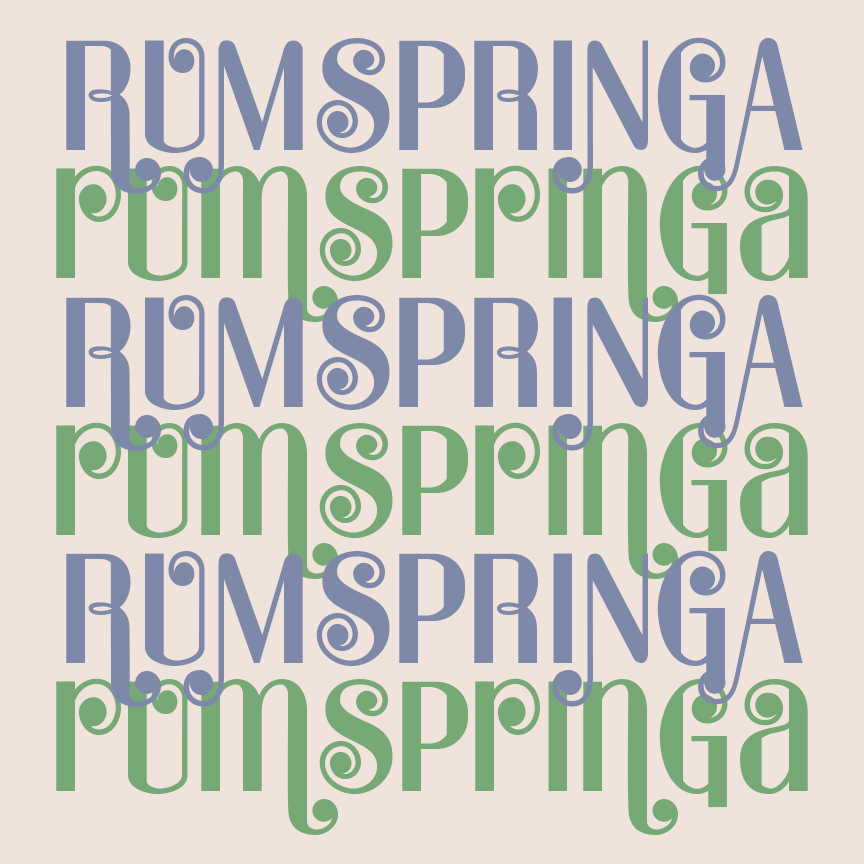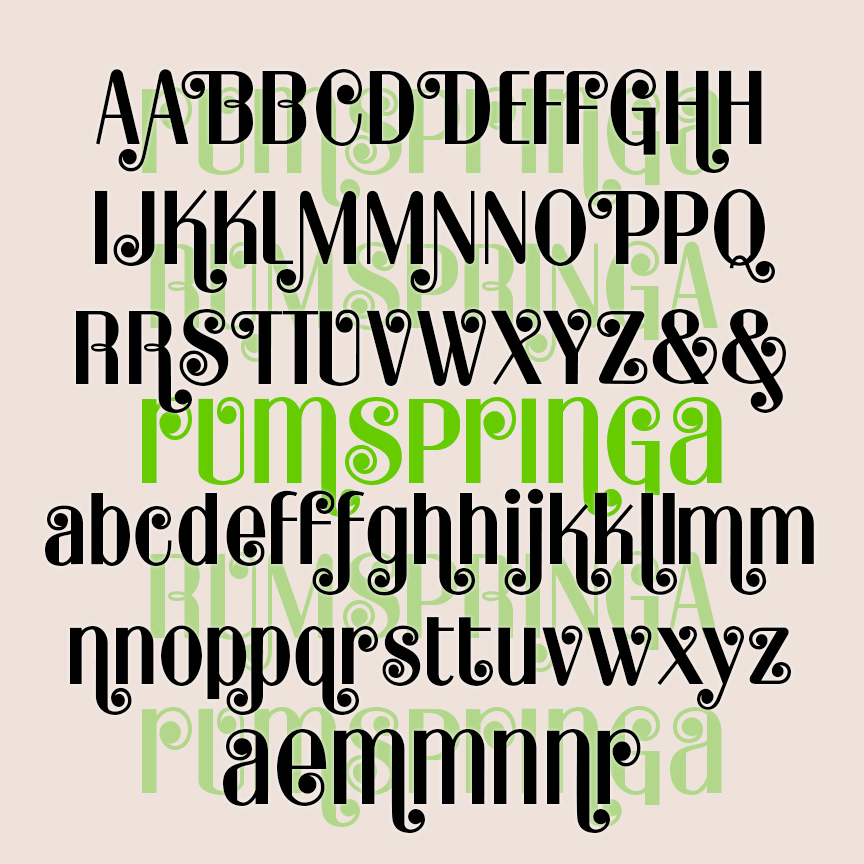
Rumspringa
RUMSPRINGA is a bright and cheerful Modern font with energy and versatility. Contrasting thin and thick strokes are combined with bouncy ball terminals for a musical feel. And there are lots of alternate characters so you can determine how much bounce you want and discretionary ligatures to add variety automatically. RUMPRINGA PRIME is an alternate version of the font with some uppercase letters taking on lowercase forms, as seen in the bottom row, a popular mid-century typographic trope. RUMSPRINGA was inspired by an analog font of the 1960s called Spring.